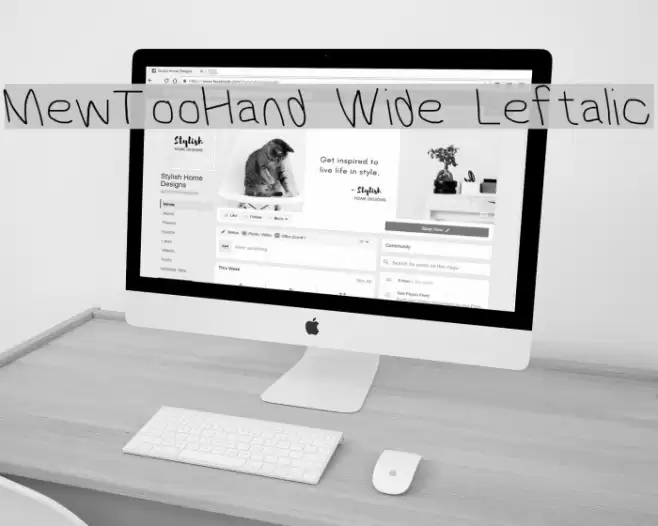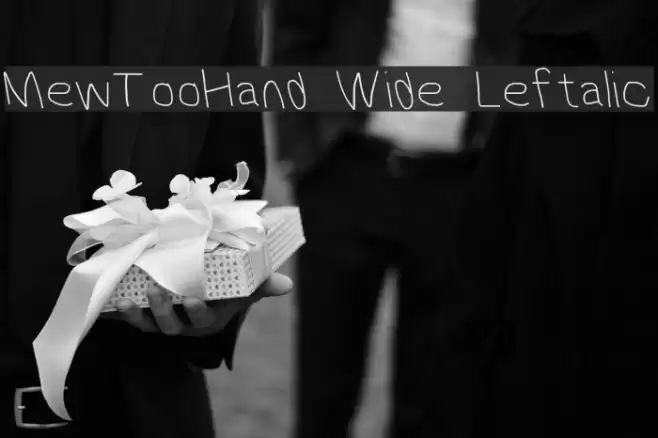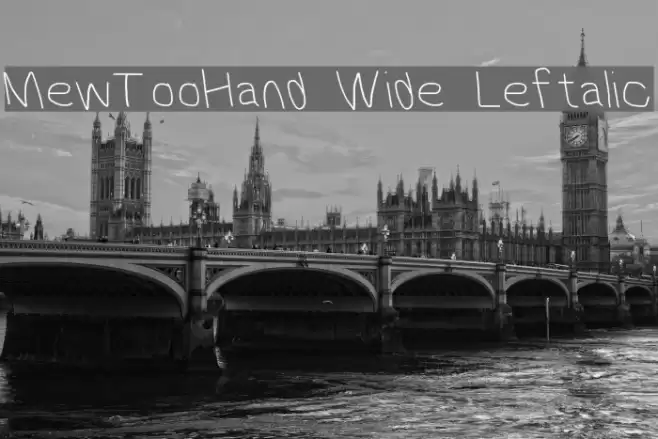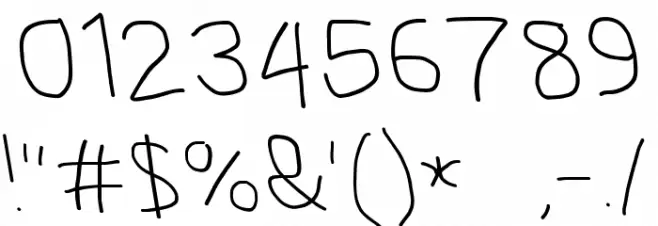
MewTooHand Wide Leftalic Font
MewTooHand Wide Leftalic Description
This font features a playful and casual handwritten style, characterized by its wide and slightly left-leaning letters. The strokes are consistent in width, giving it a uniform appearance, while the rounded edges add a friendly and approachable feel. The uppercase and lowercase letters maintain a consistent height, contributing to its readability. Numbers and special characters are designed to match the overall style, ensuring cohesion across different text elements. The font's informal and relaxed nature makes it suitable for projects that require a personal touch.
A playful, wide, and slightly left-leaning handwritten font from Uncategorized fonts.
- Proposed Projects: Ideal for greeting cards, children's books, casual invitations, and personal blogs.
- Overall Style: Casual
- Use Case: Headlines, Informal text, Personal projects